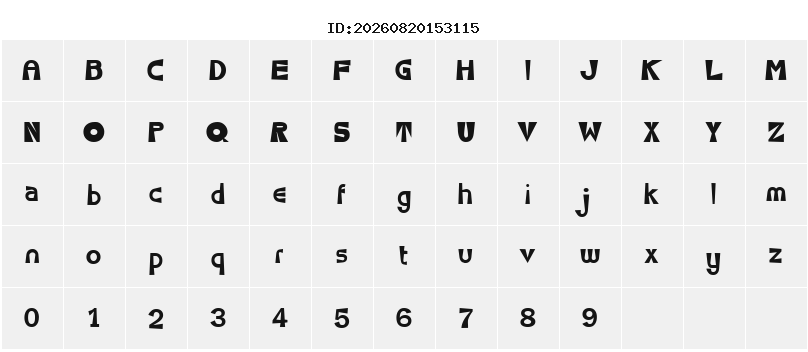
About Seventy Flares.ttf
Seventy Flares.ttf is a modern, elegant sans-serif font designed for ultimate readability and visual harmony. Perfect for branding, headlines, web design, and print materials.